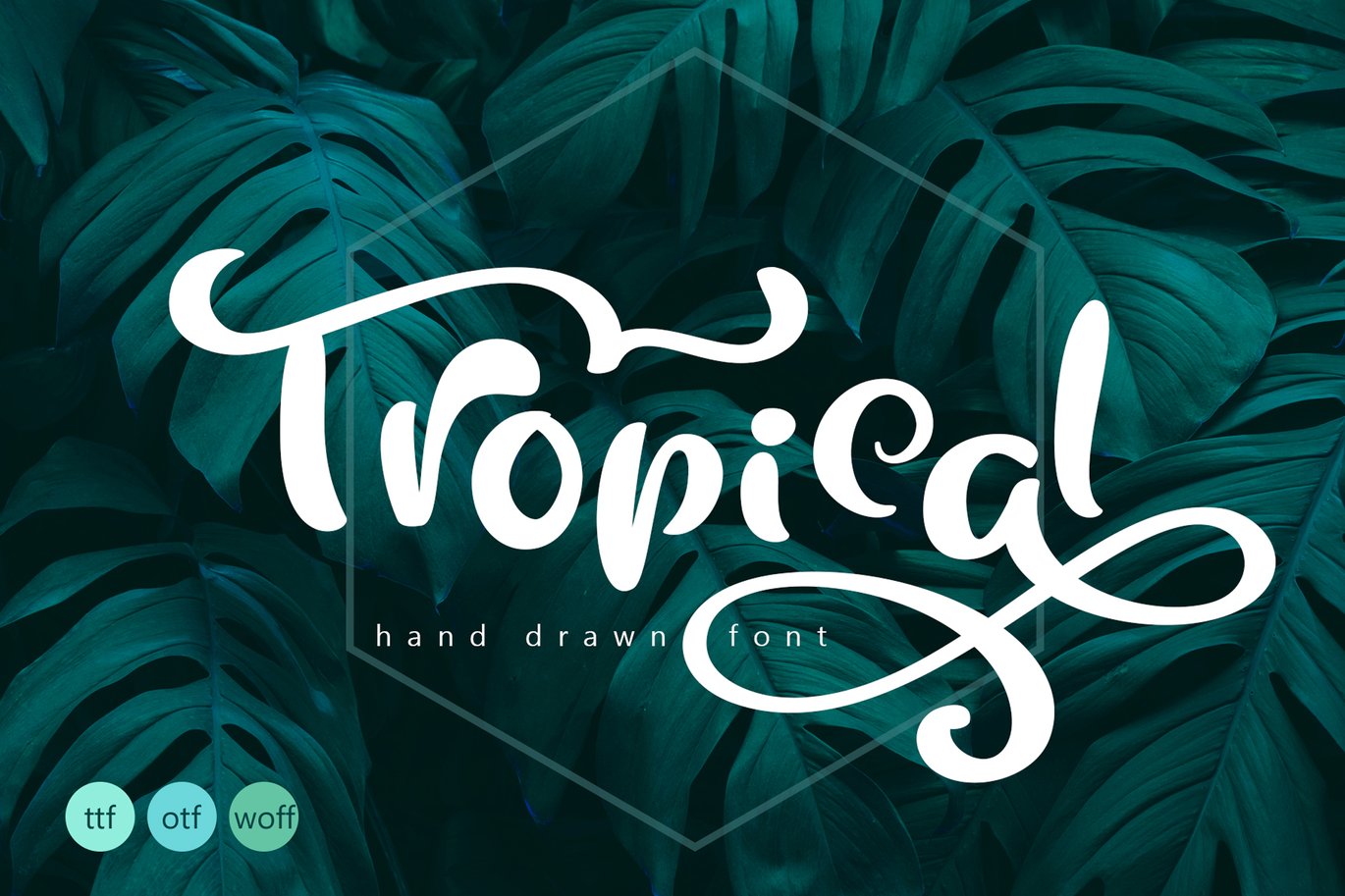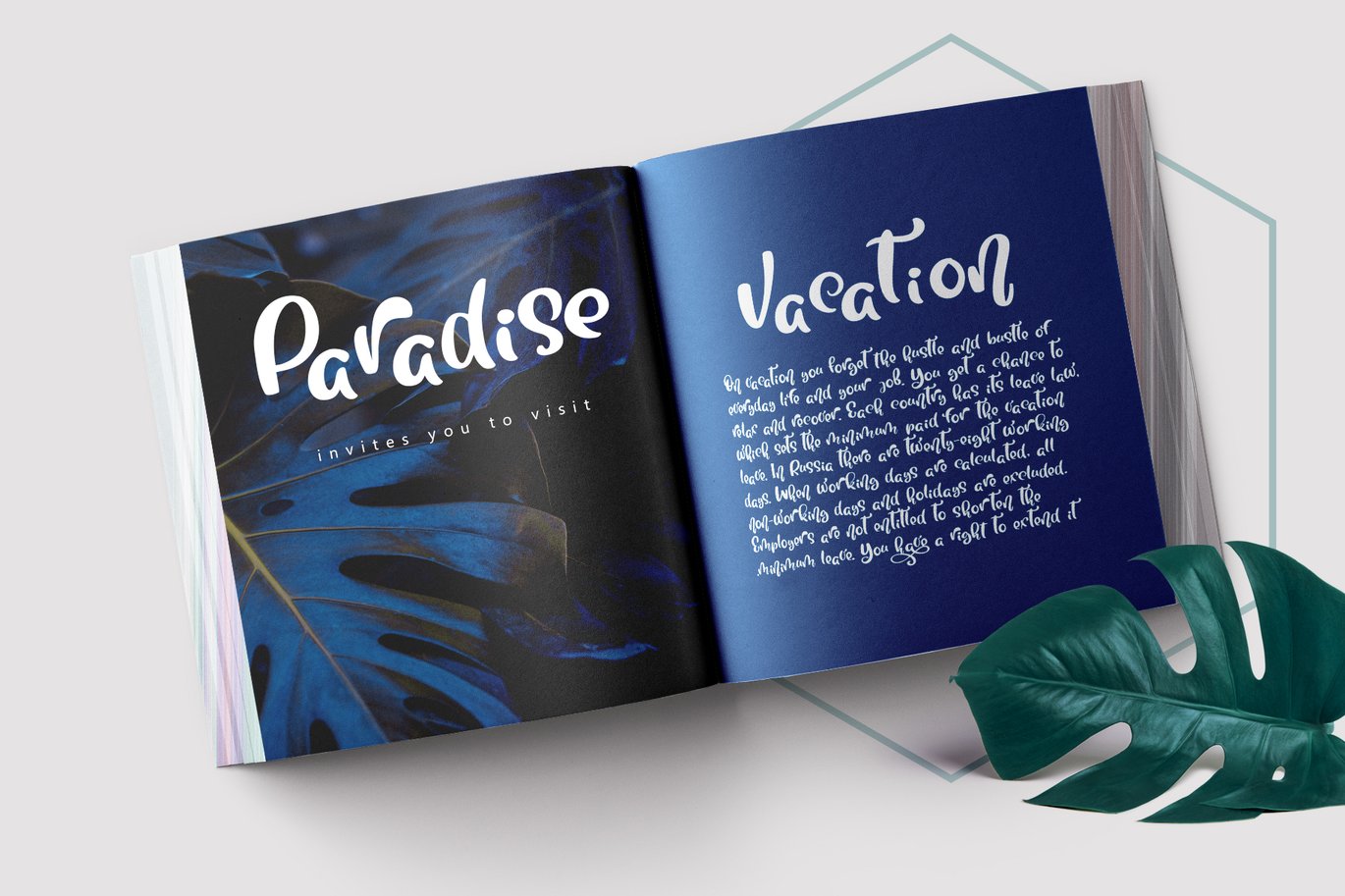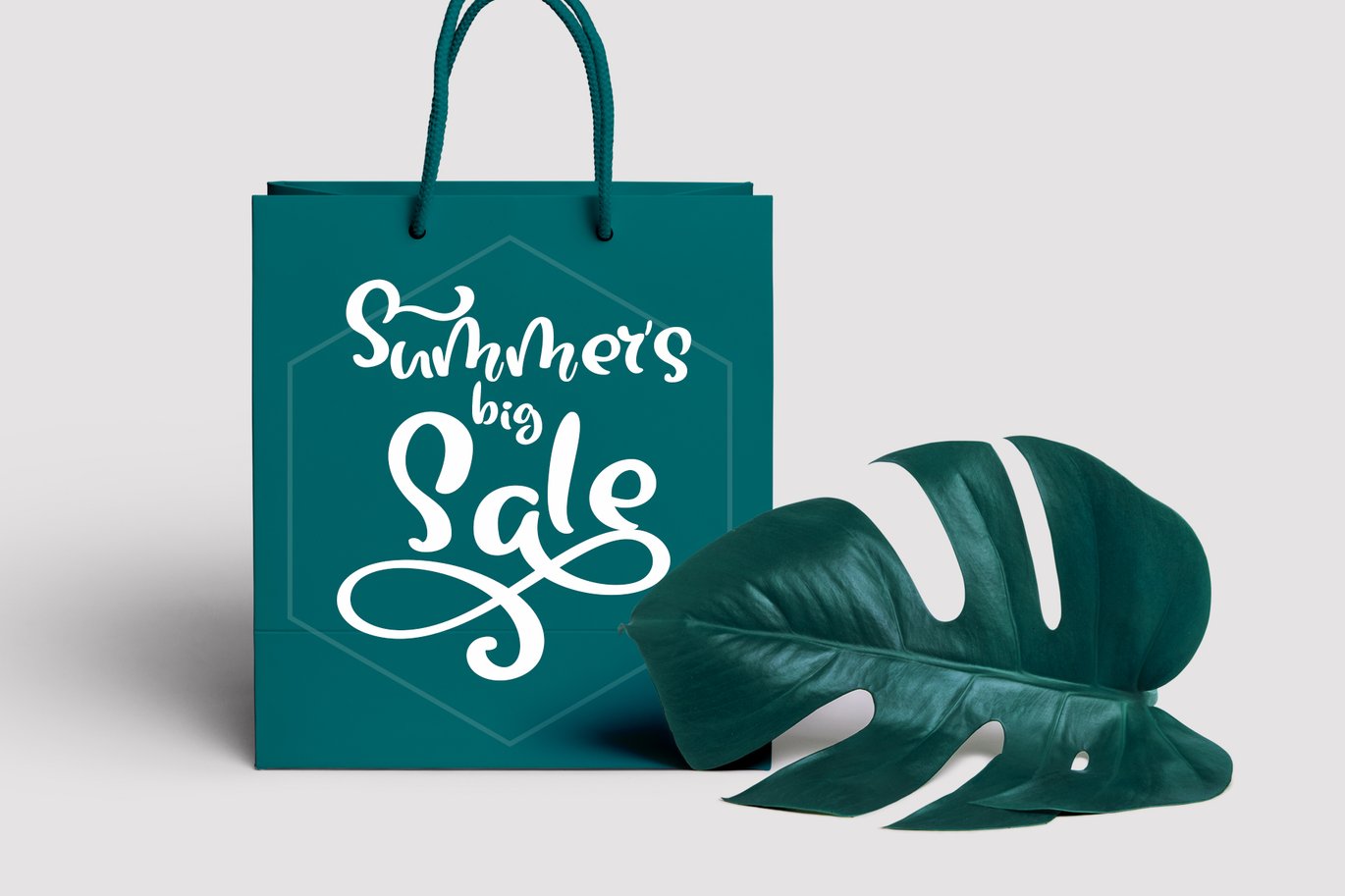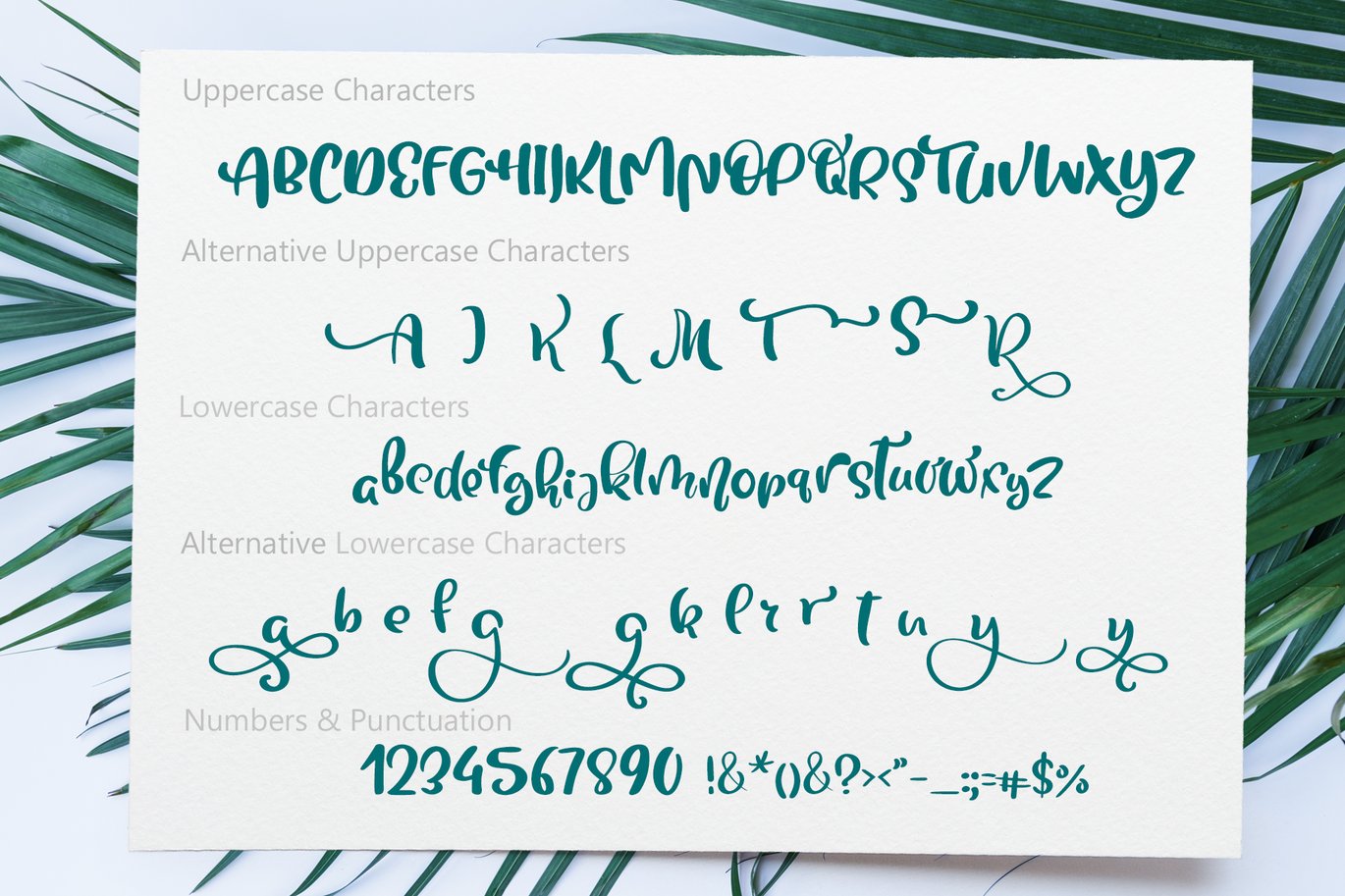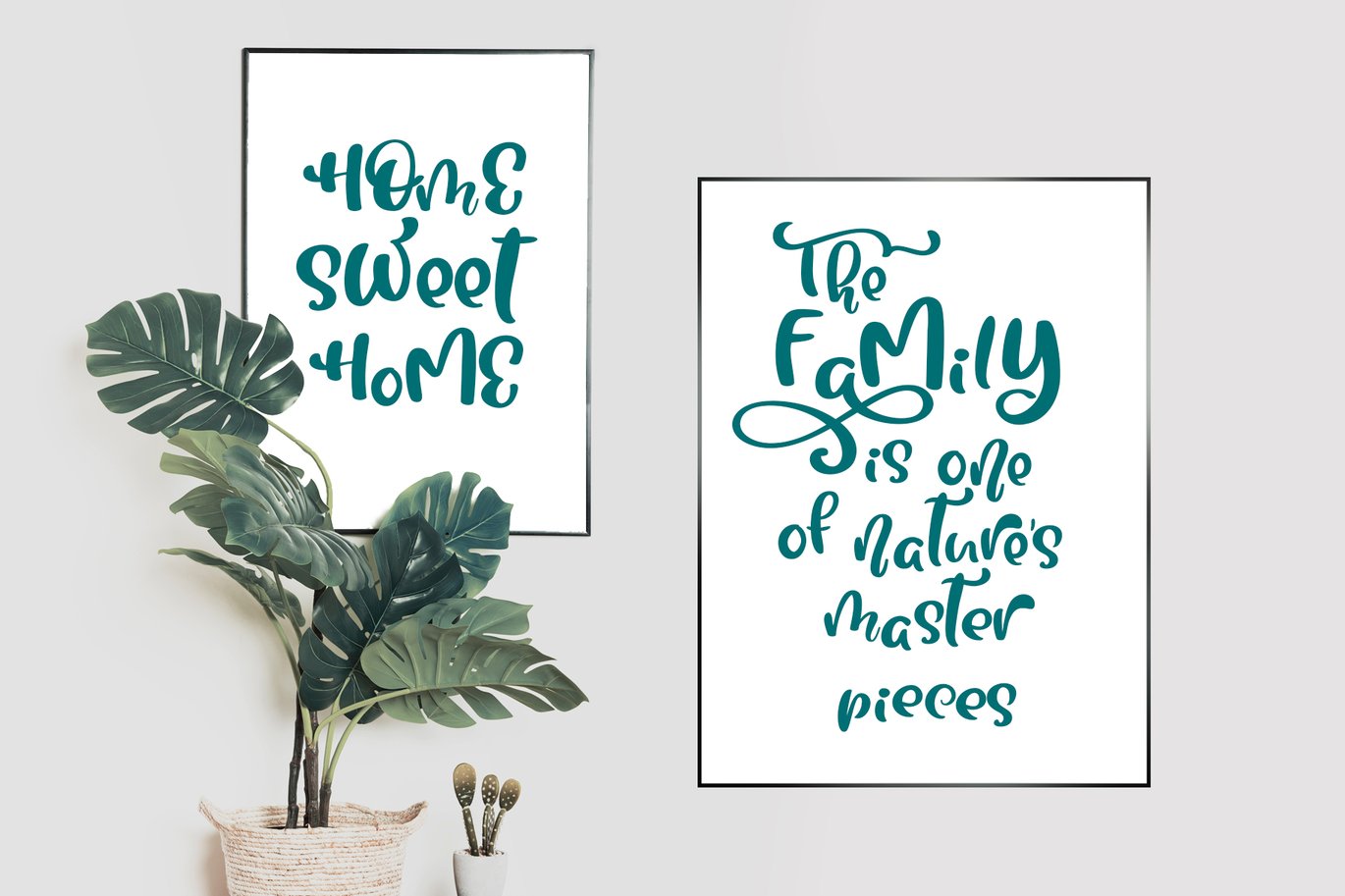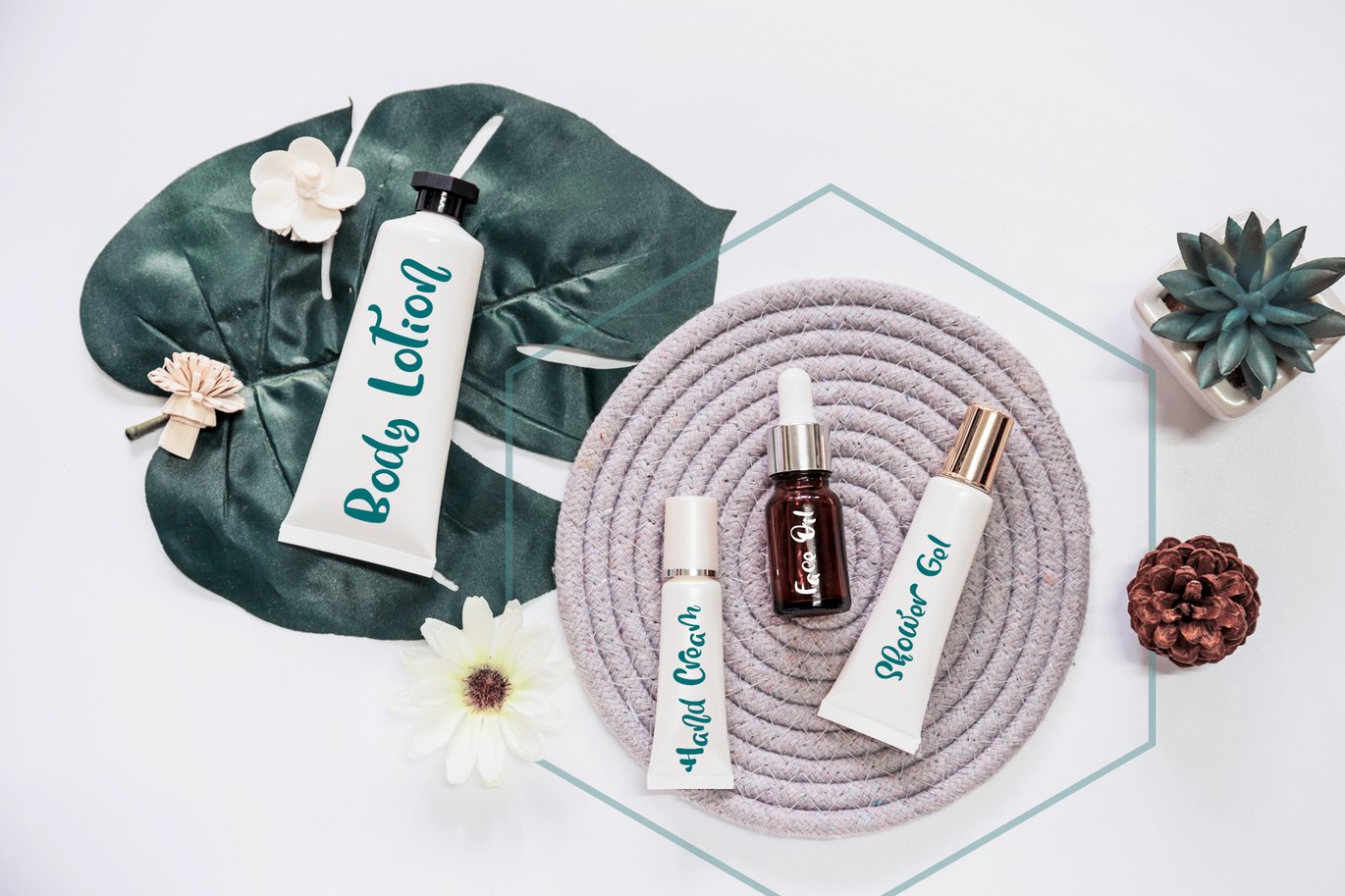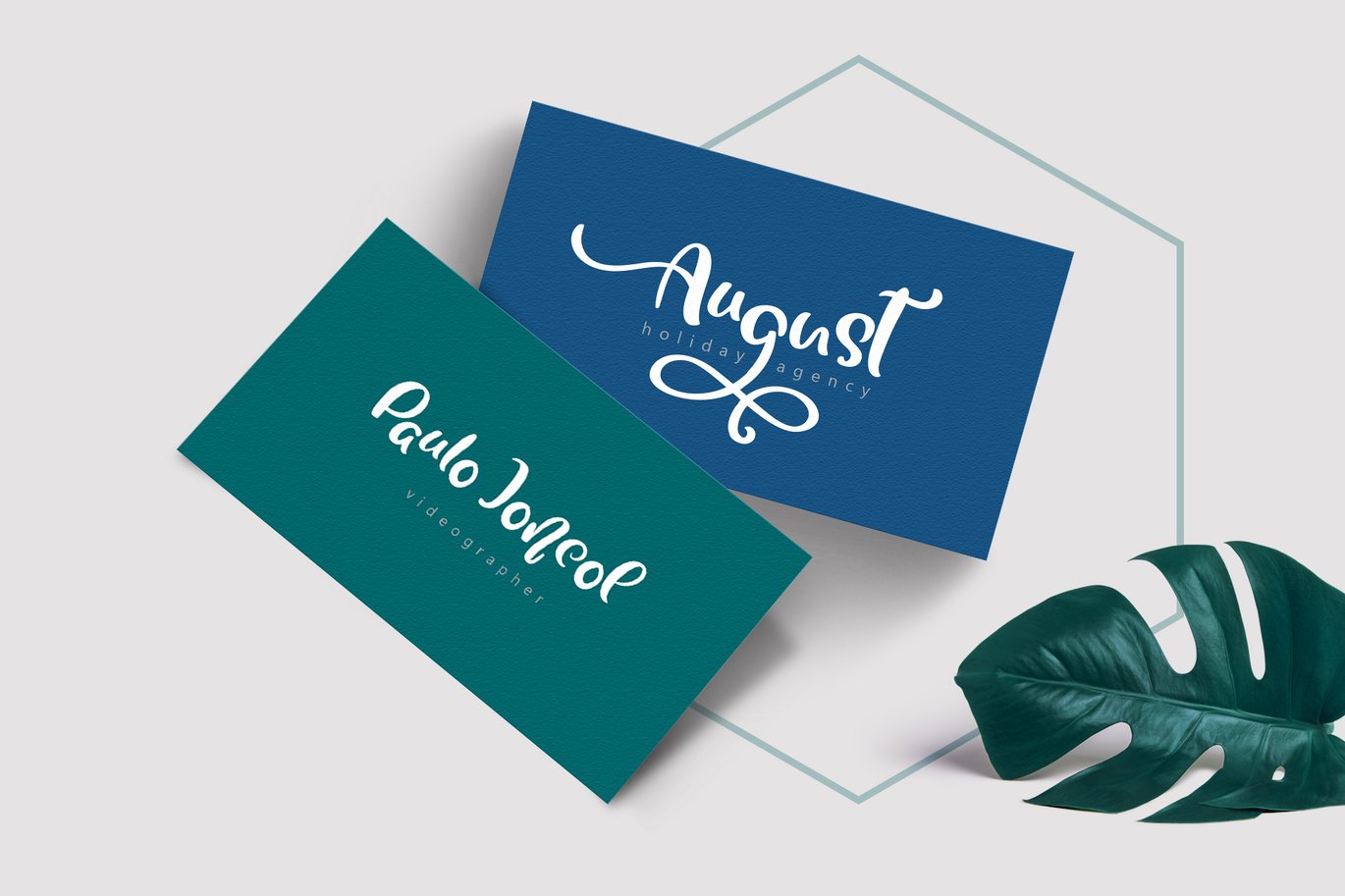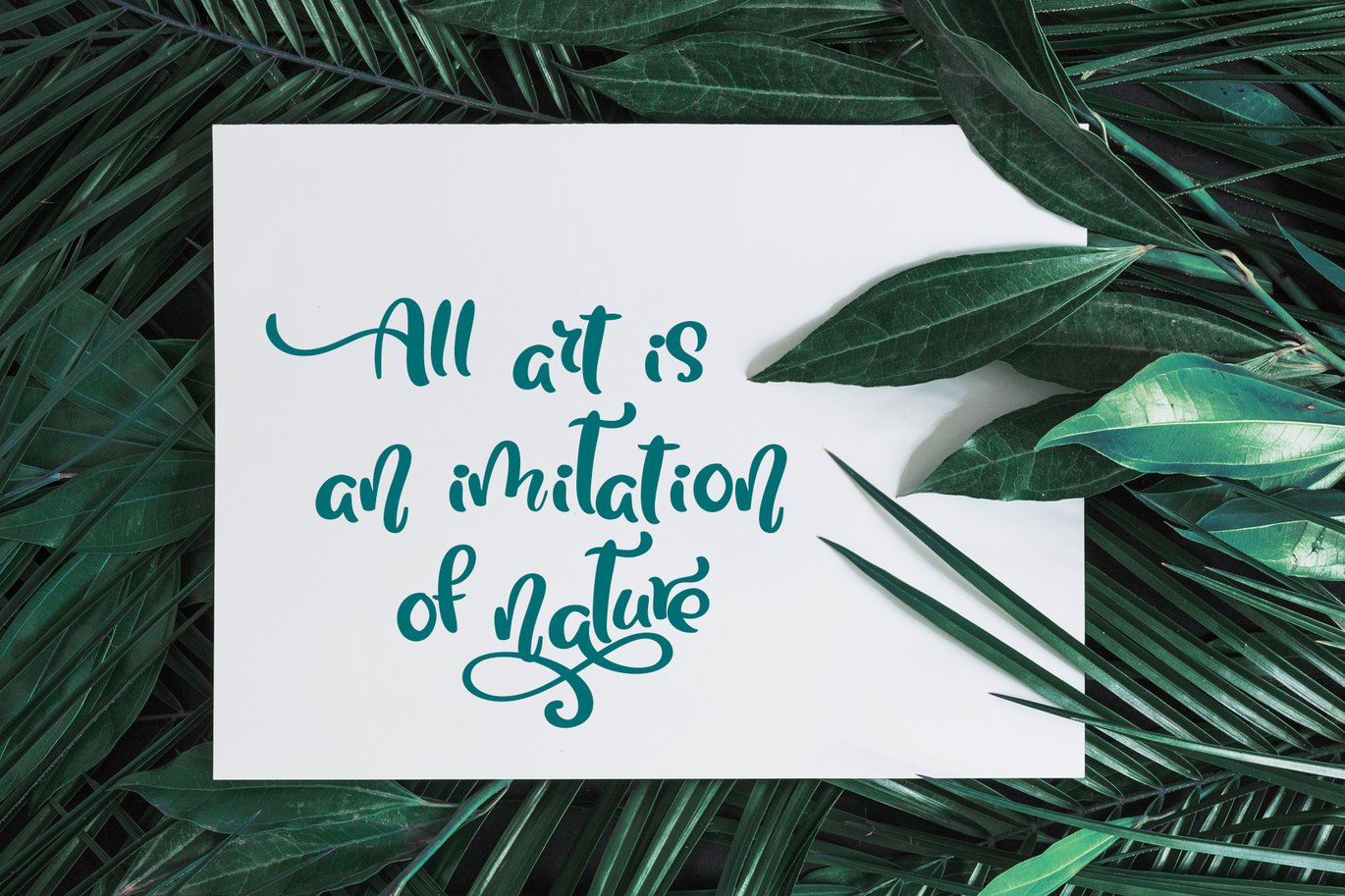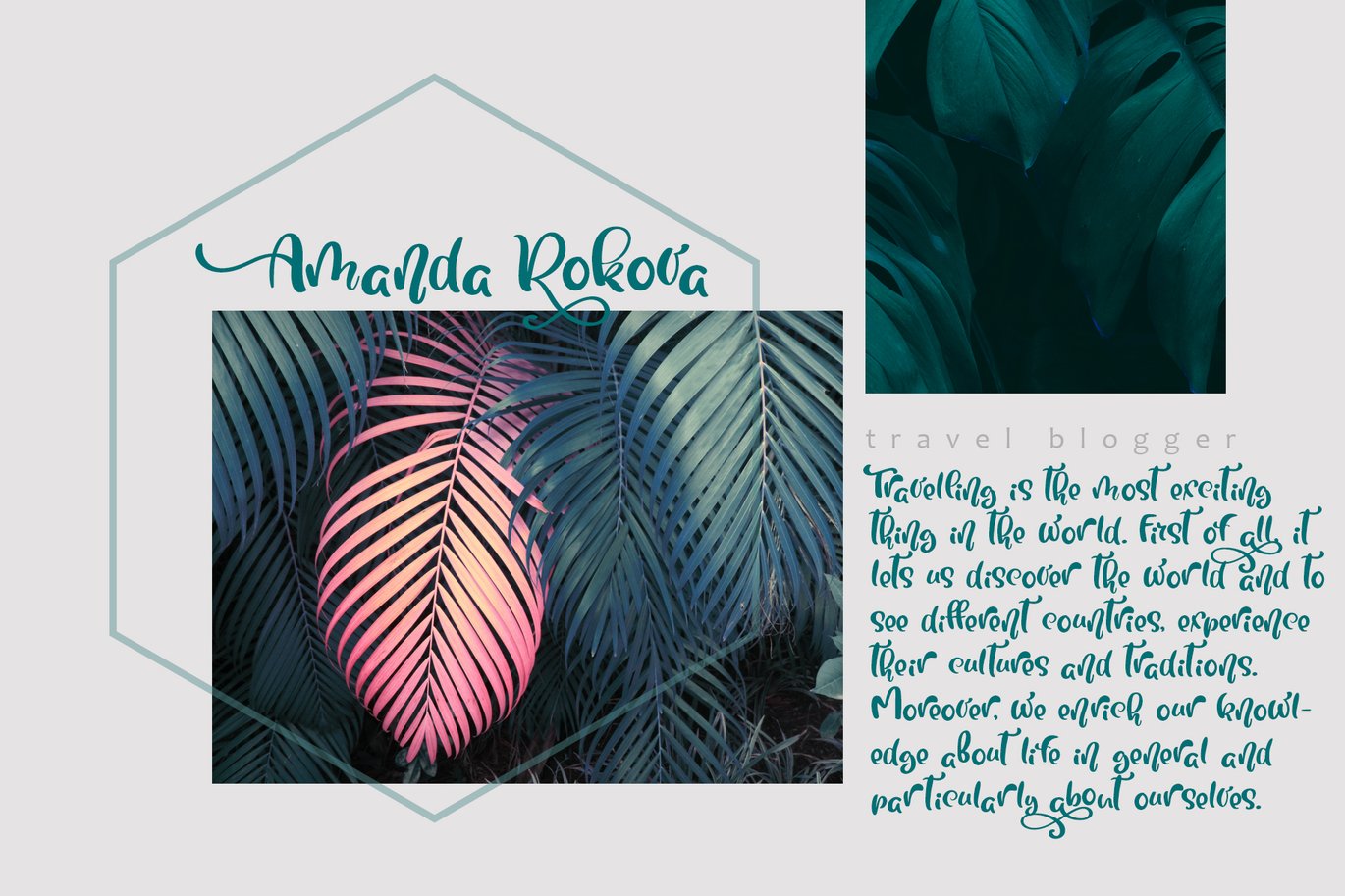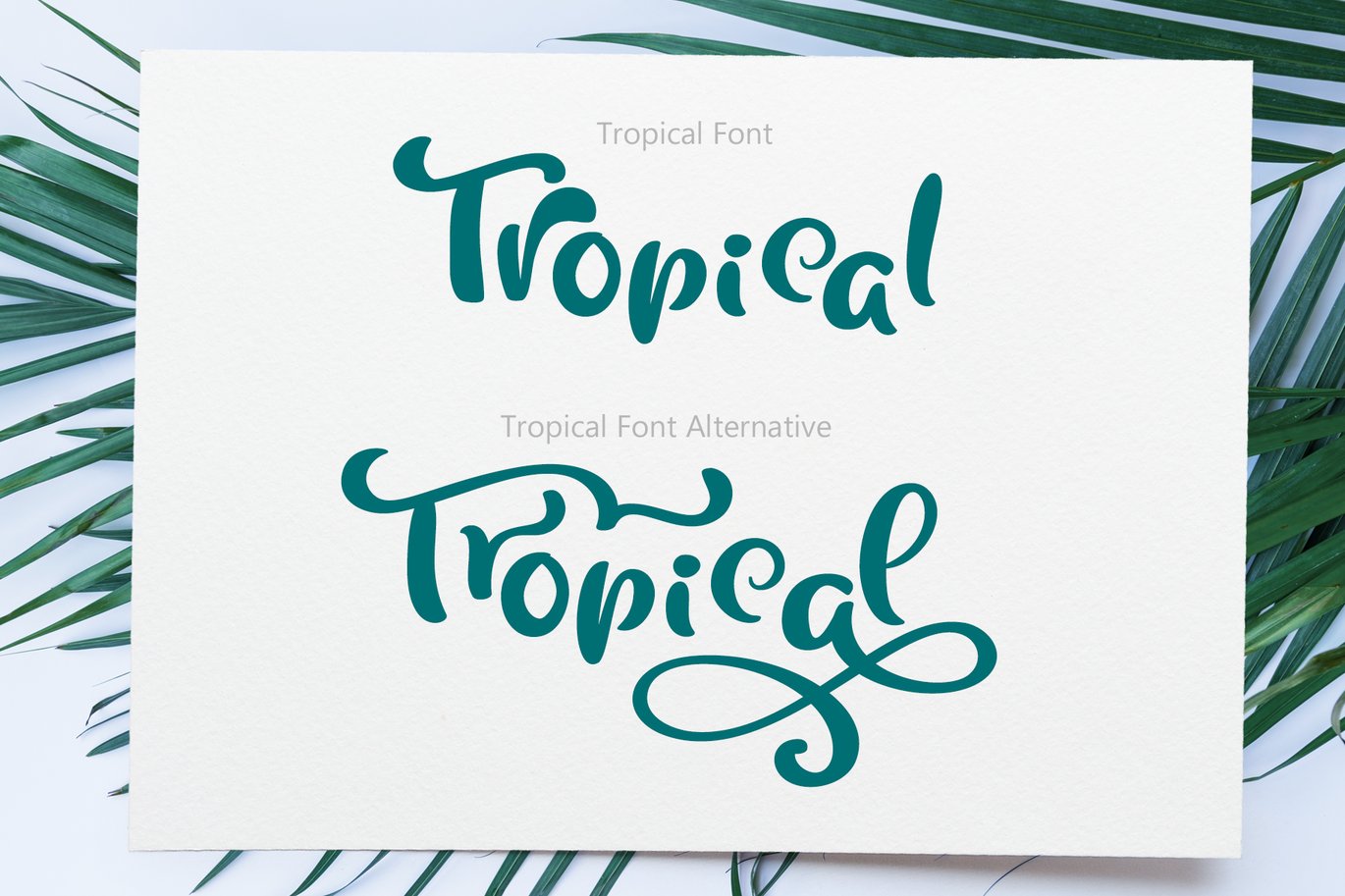
Tropical Summer Font
Unique handmade calligraphic Tropical Summer Font is modern display font with alternative flourish lowercase and uppercase characters.
PERFECT FOR
Titles and text for wedding albums, logo, hand drawn phrases or quotes for greeting cards (Christmas, Valentine`s Day, Mother`s Day, Easter, Birthday and other holidays), photo overlay, logo, short phrases, gift shops tag, presentation, Pinterest or Instagram.